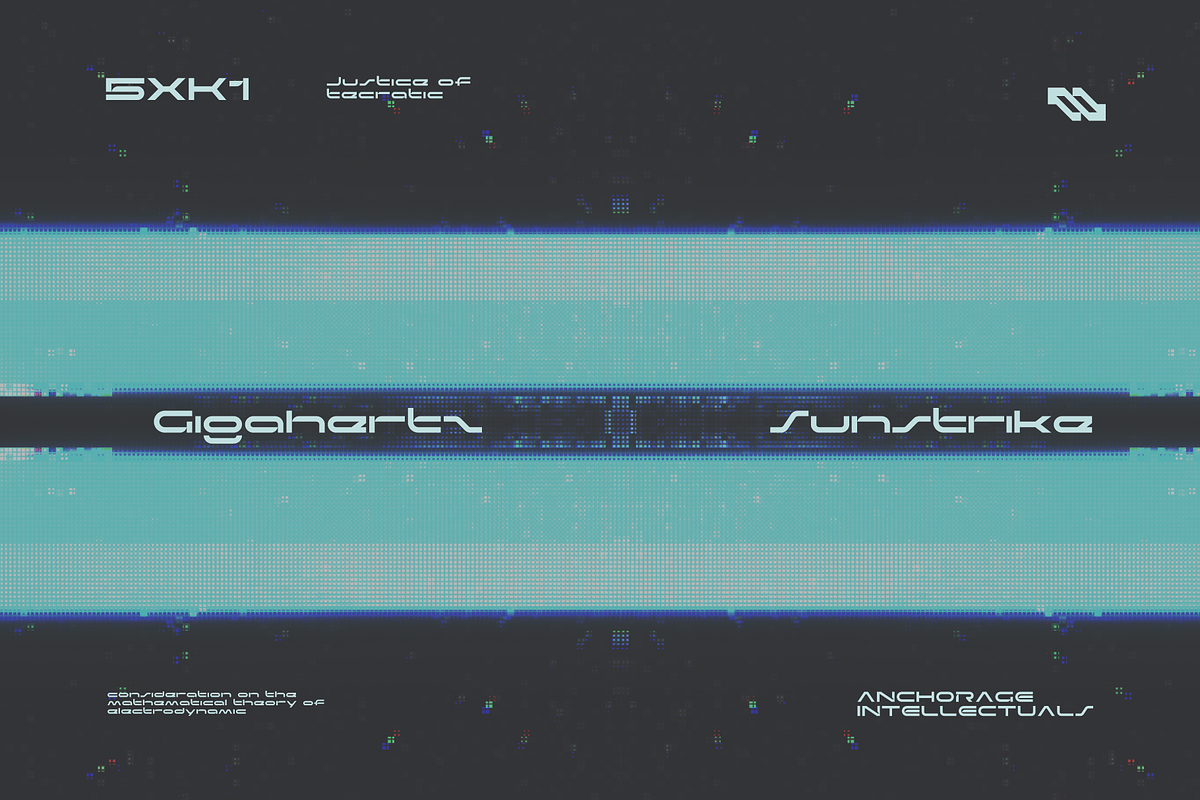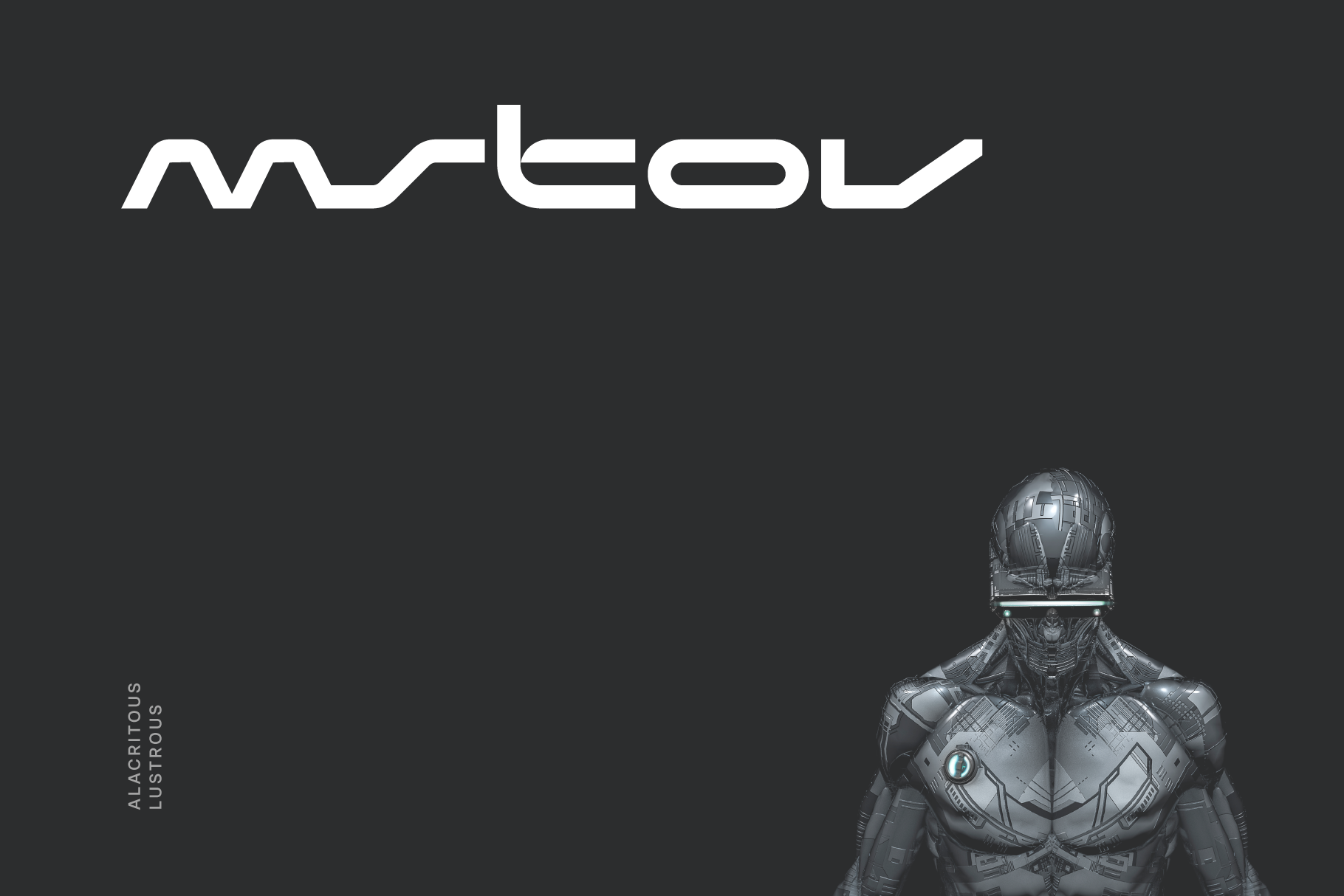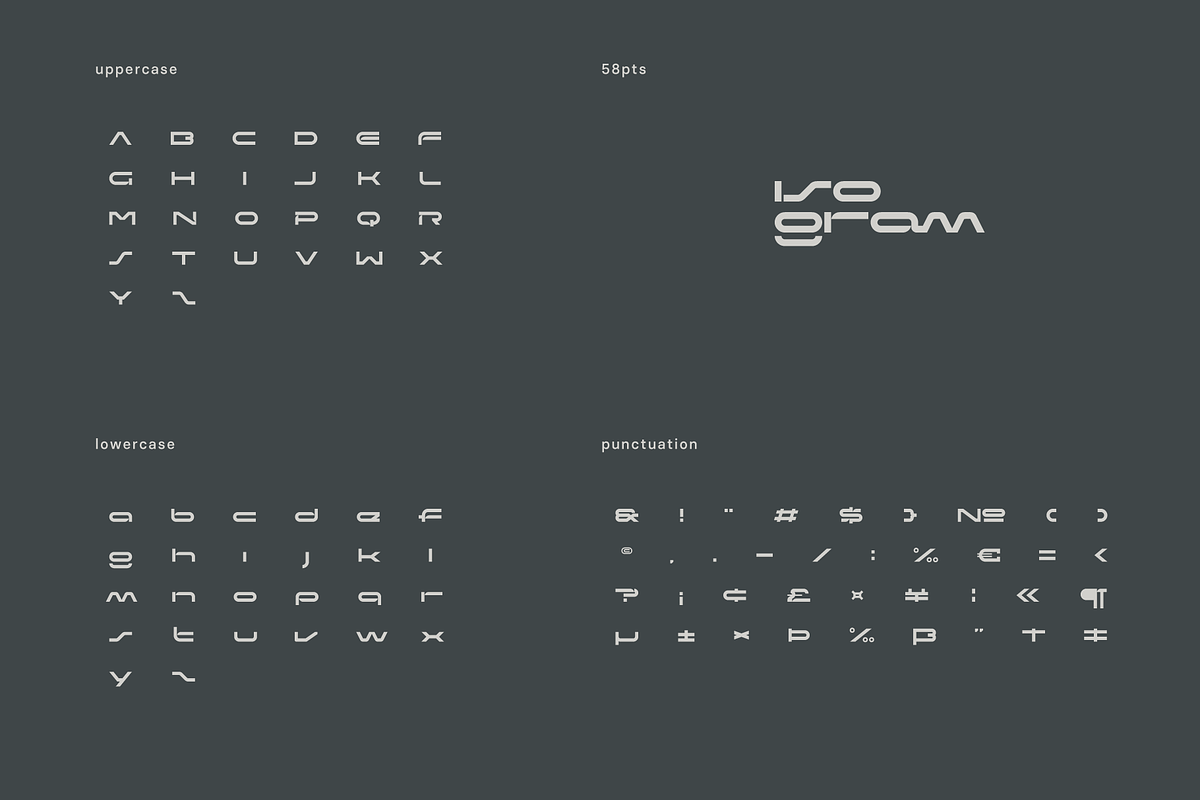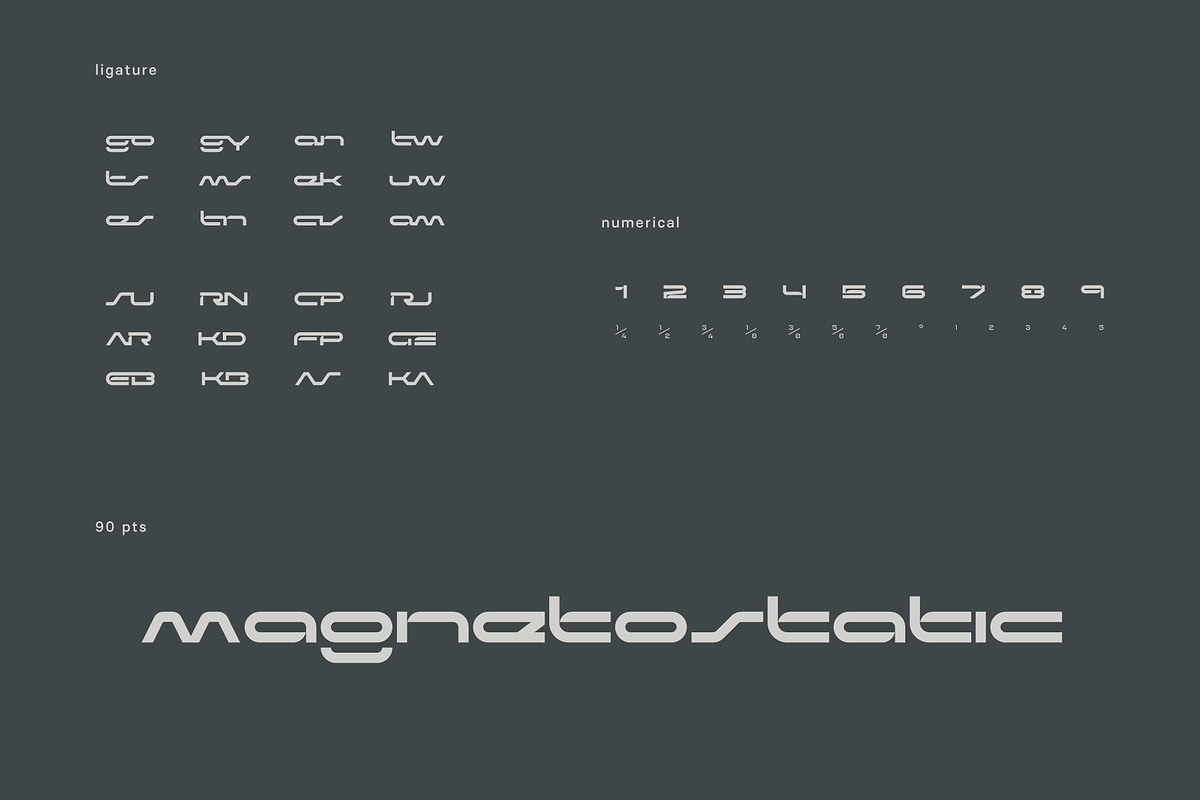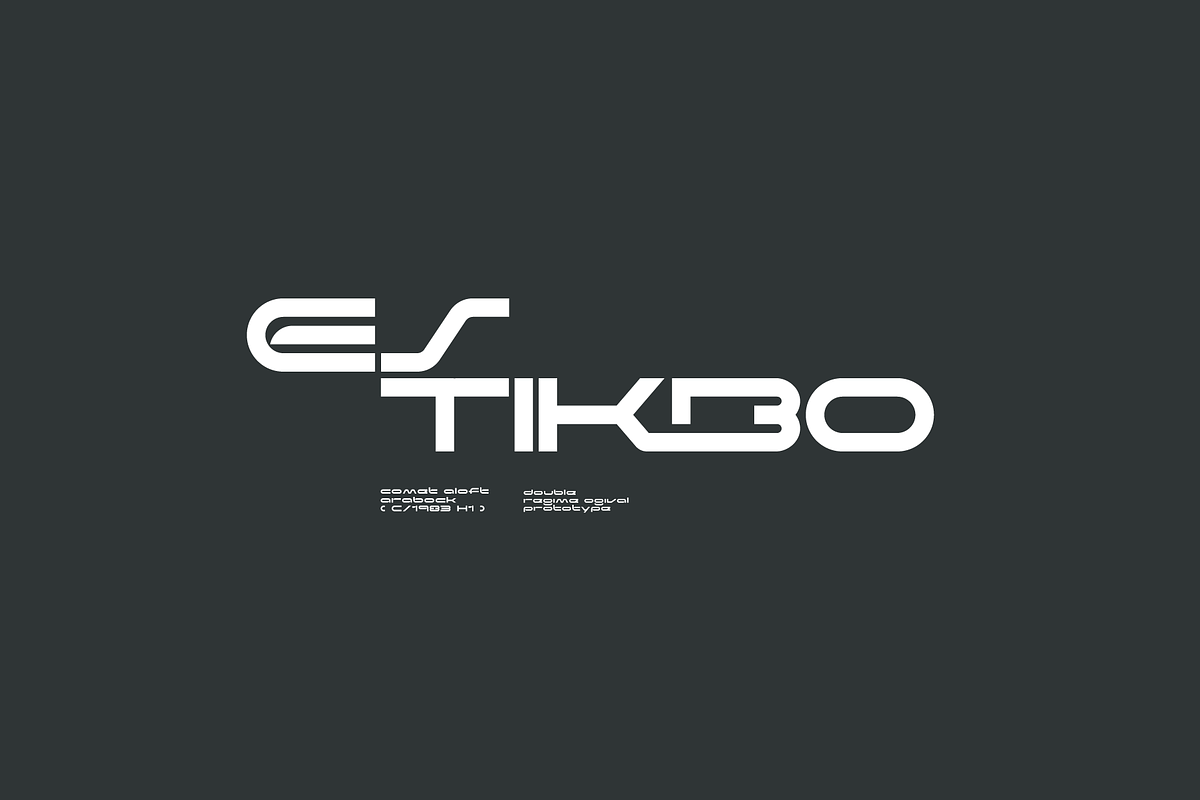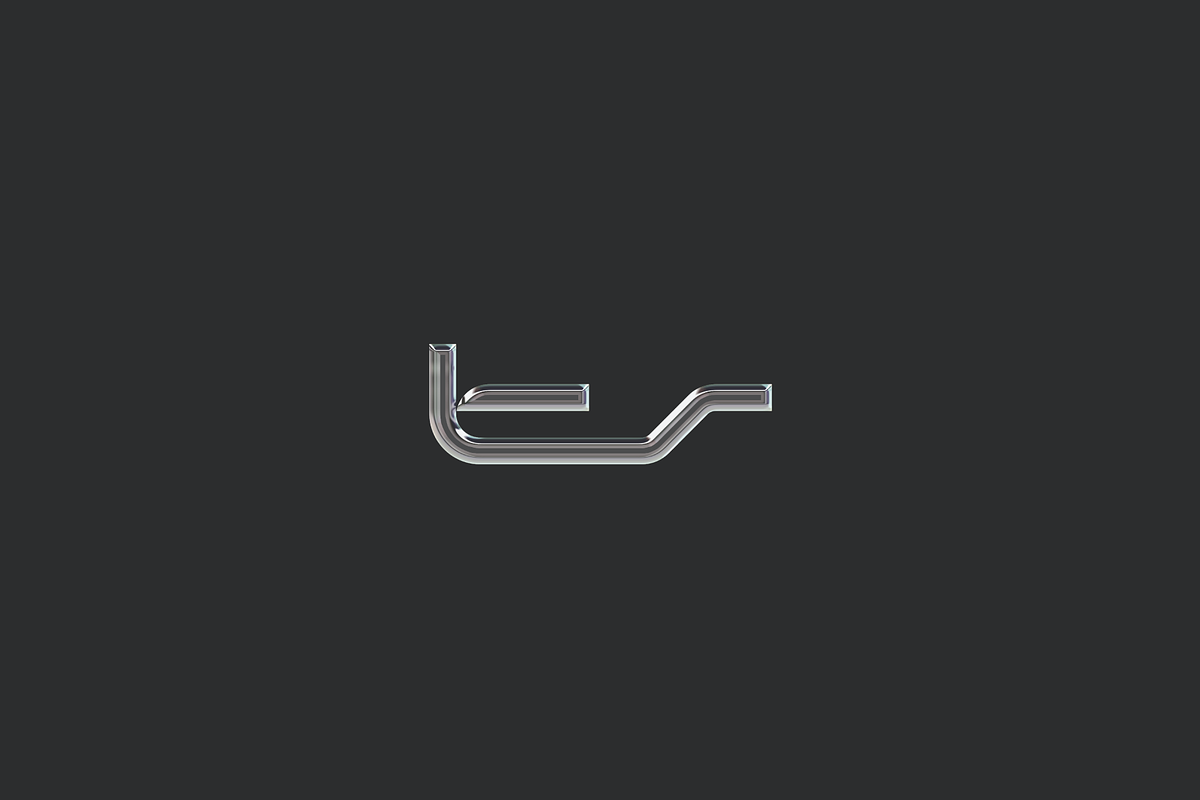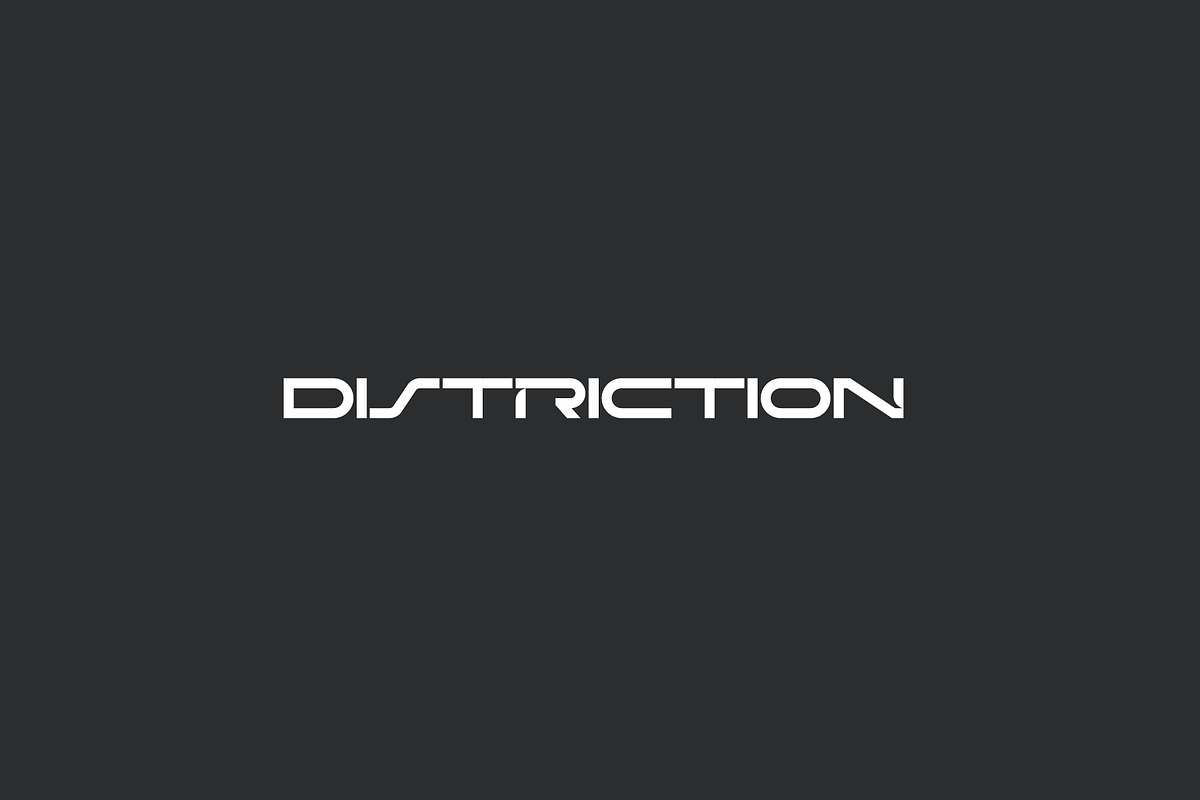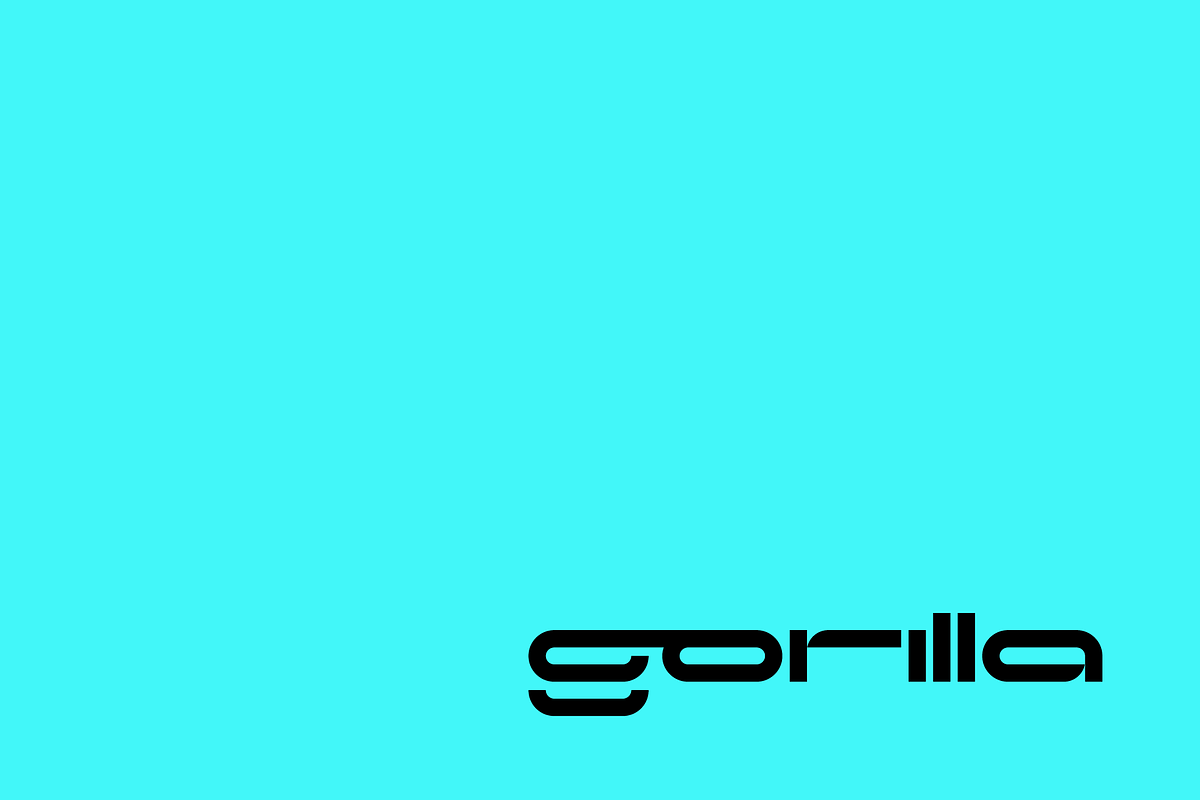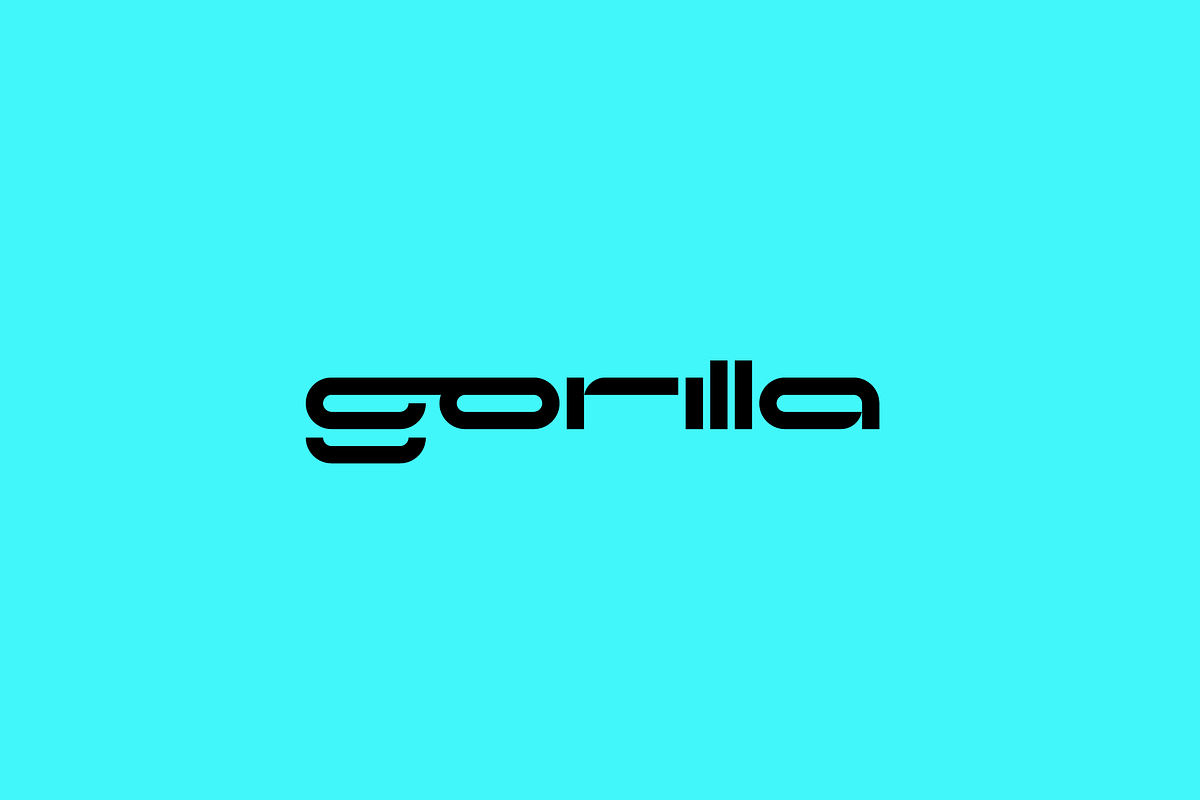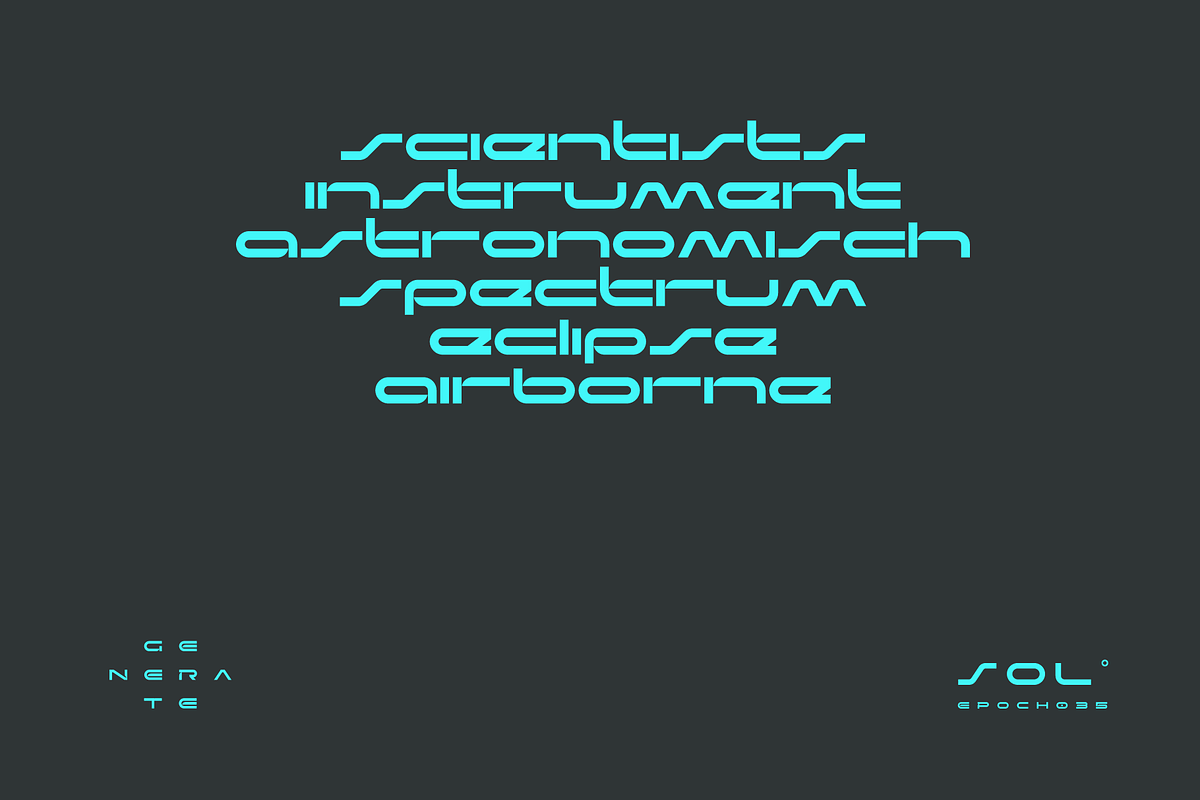
Mstov Futuristic Tech Font
Mstov is an alacritous kooky tech display typeface apt for headline, editorial, branding, packaging, printed materials and typographic applications. 150+ glyphs with ligatures and fractions provided in opentype .otf and .woff format.